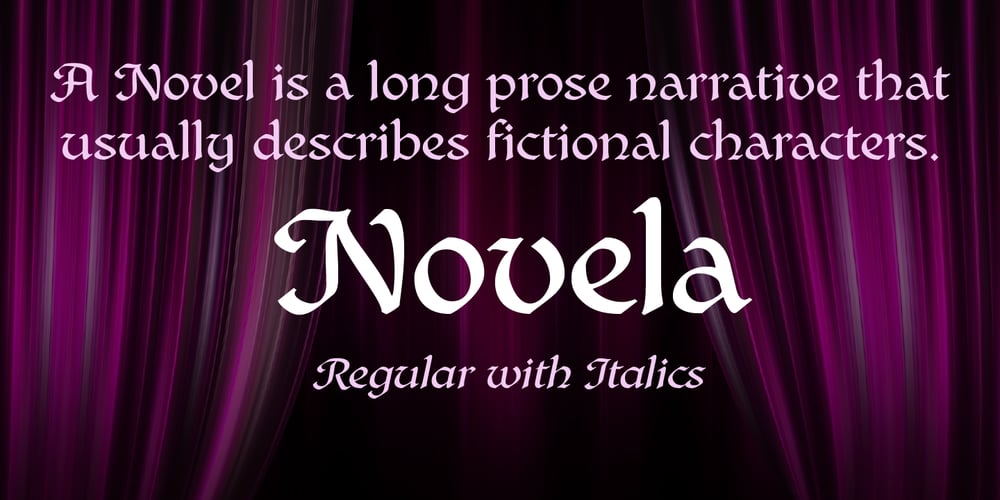
Novela Font Family was designed by John Nahmias and published by Jonahfonts. Novela contains 2 styles and family package options. Novela is a chisel flat pen style written with overtones of Uncial, from century old scribes. Very suitable for greeting cards, headlines, packaging and many other applications.